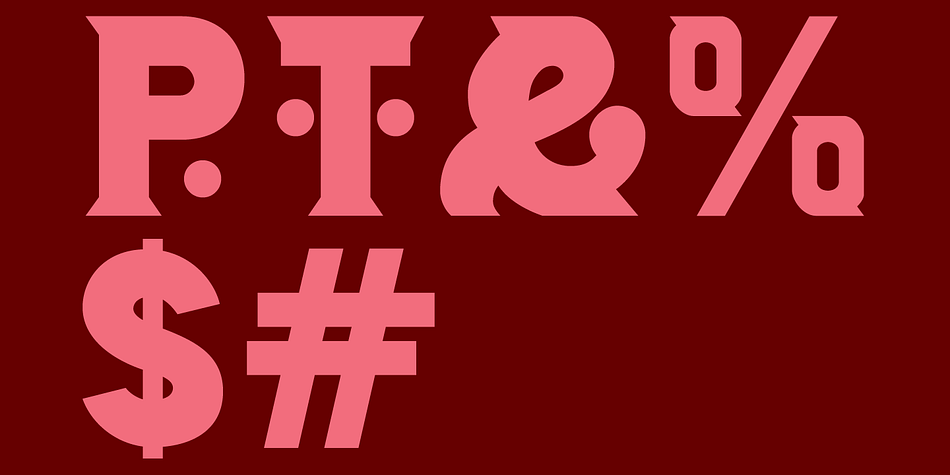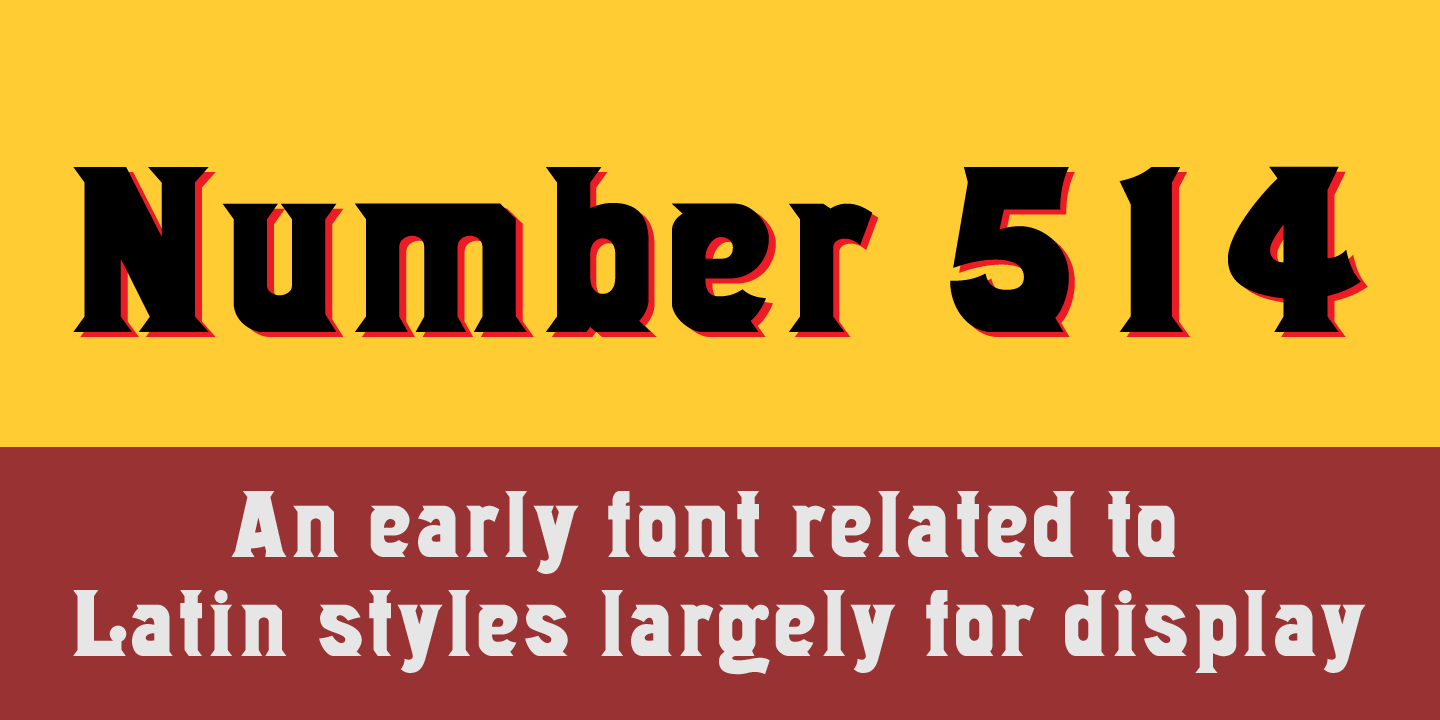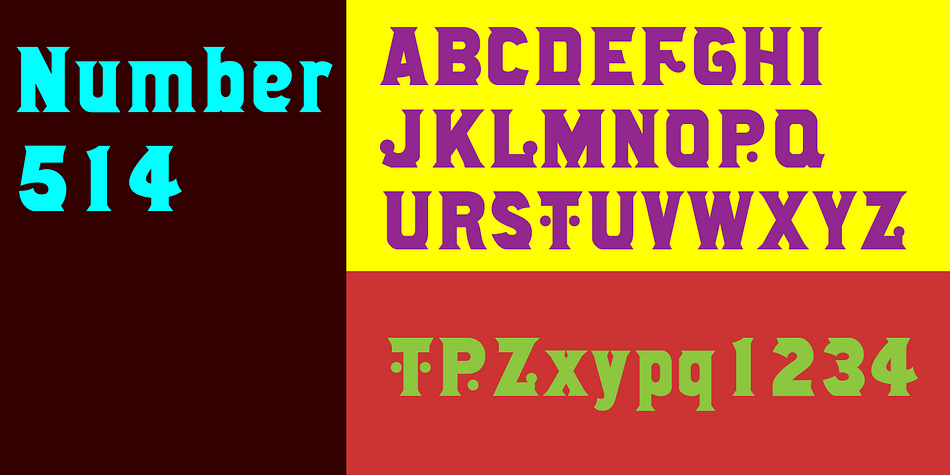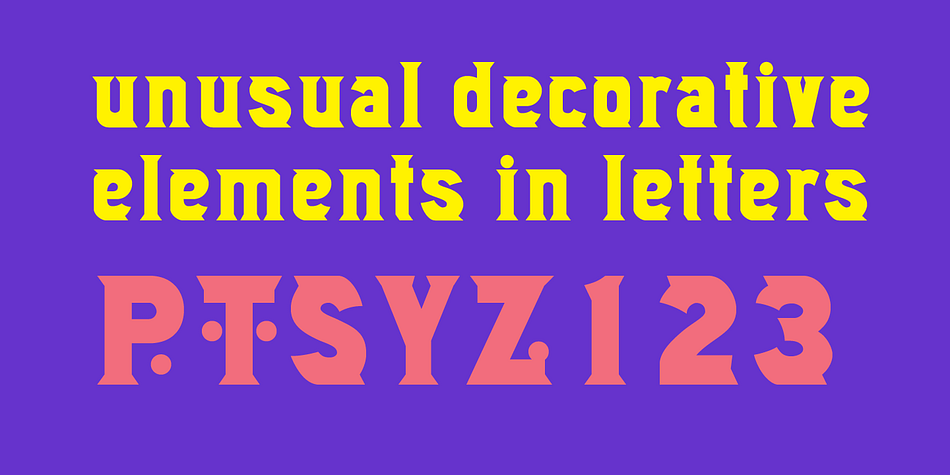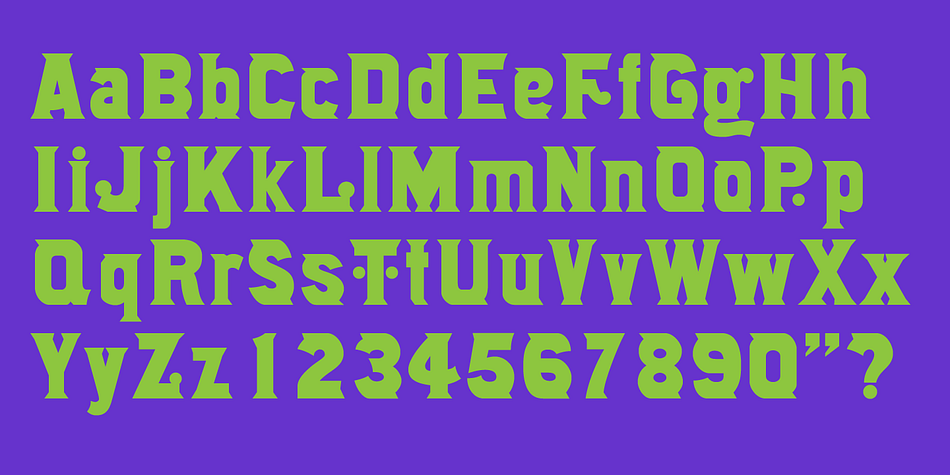
Number514
Designed by Jordan Davies, Number514 is a display serif font family published by Wooden Type Fonts.
A very bold and unusual font with very unusual serifs.